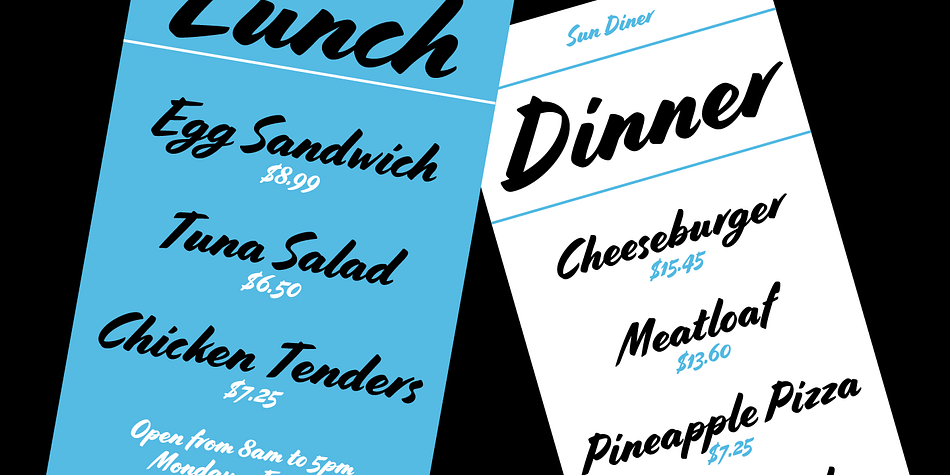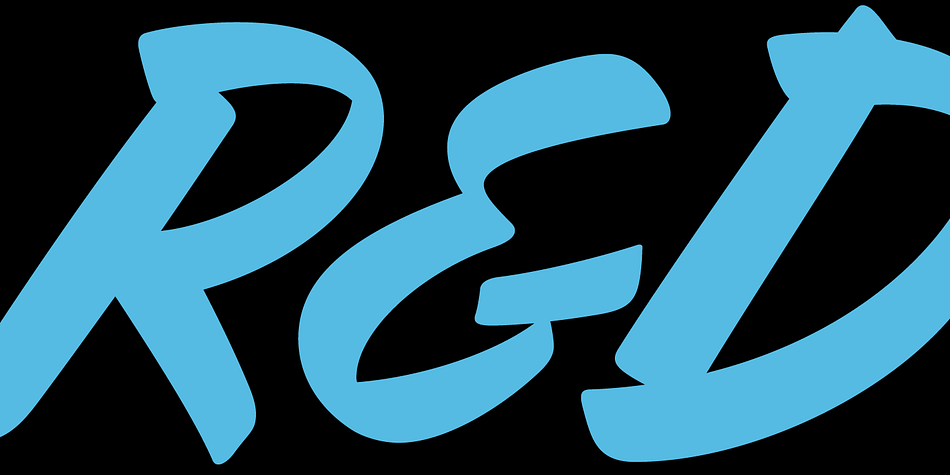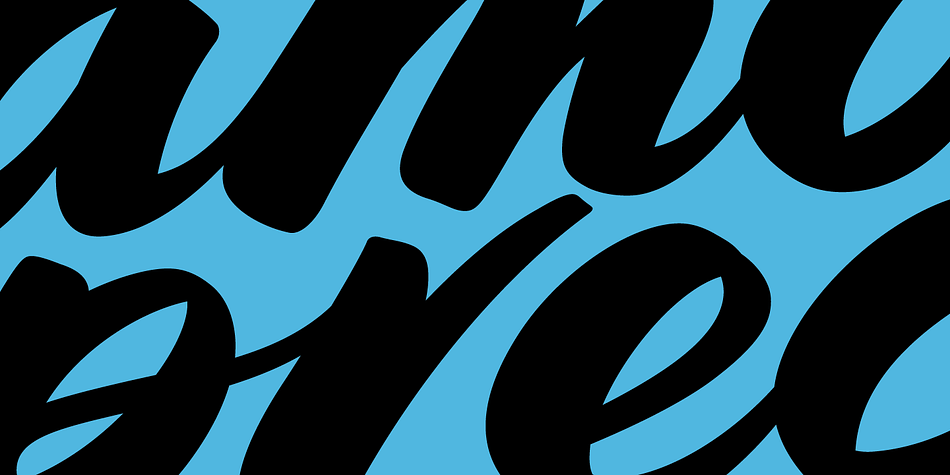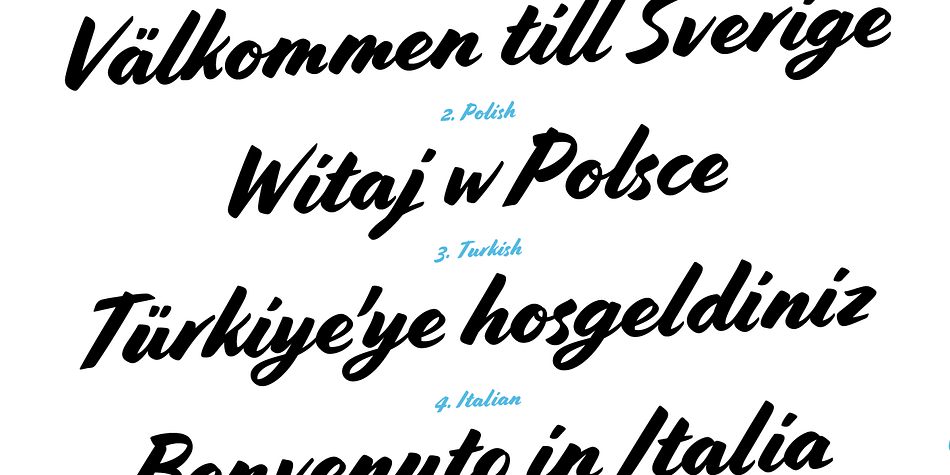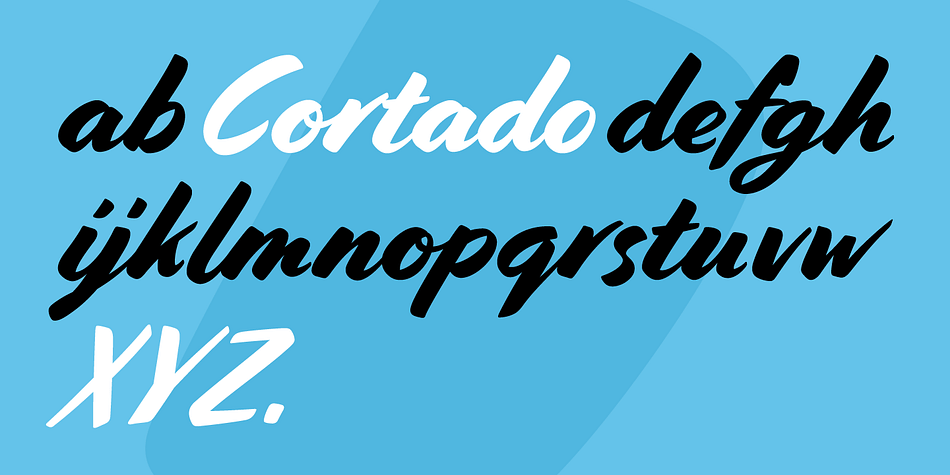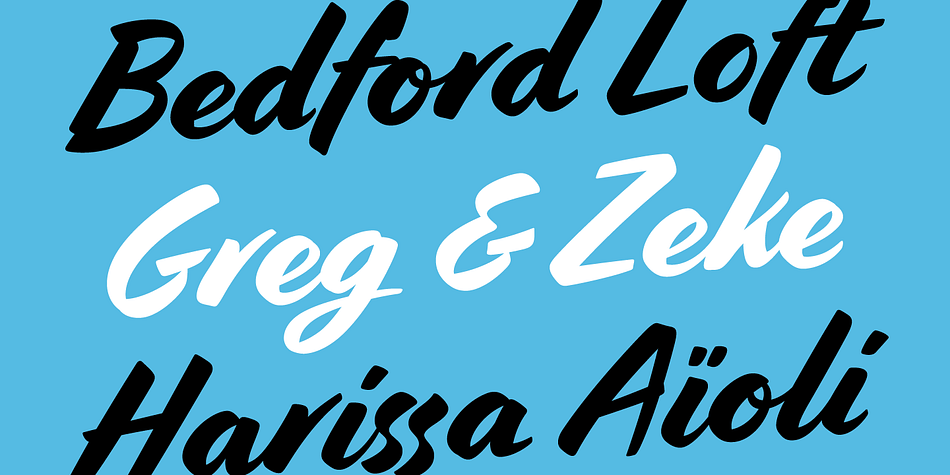
Designed by Ben Kiel and Jesse Ragan, Cortado is a brush display, brush script and script font published by XYZ Type.
Inspired by illustrator Cecilia Carlstedt’s hand-painted script, Cortado translates the spontaneous energy of pointed brushwork into digital type. With a strikingly fresh aesthetic, Cortado has breezy confidence and mid-century cool.
To mimic hand lettering, nimble OpenType programming automatically alternates cursive connections with breaks between characters. Ligatures step in to prevent awkward collisions, and words end in natural brushstrokes. Repeated letters have subtle shape variations, for an authentic, self-assured feel.
You can fine-tune every feature yourself, but why not let Cortado do the heavy lifting? Kick back with a café cortado (the Spanish name for espresso cut with milk). Cortado’s got this—with fully-caffeinated swagger.